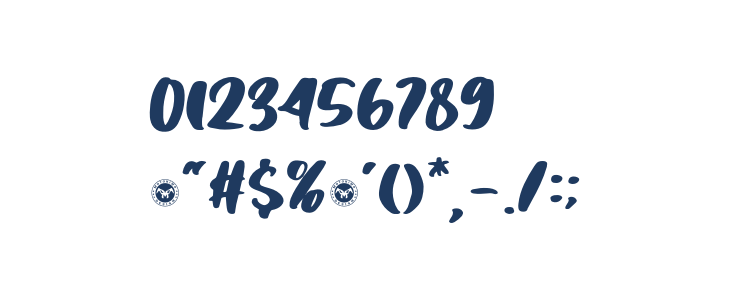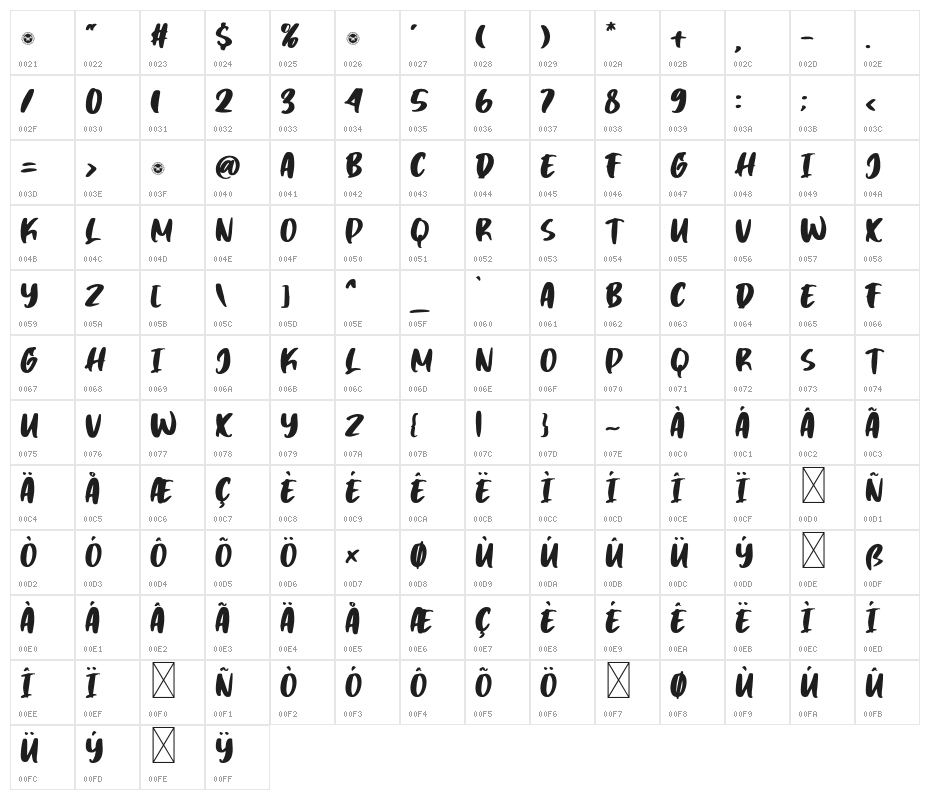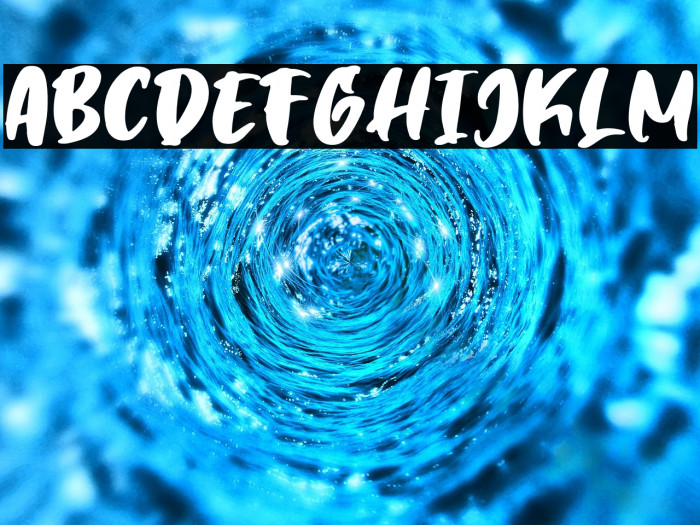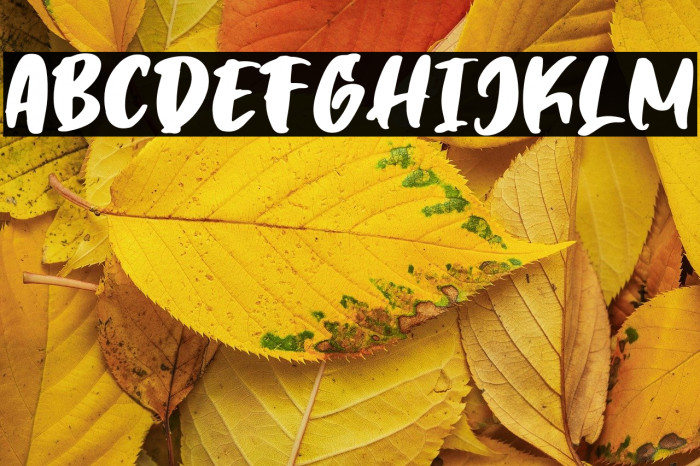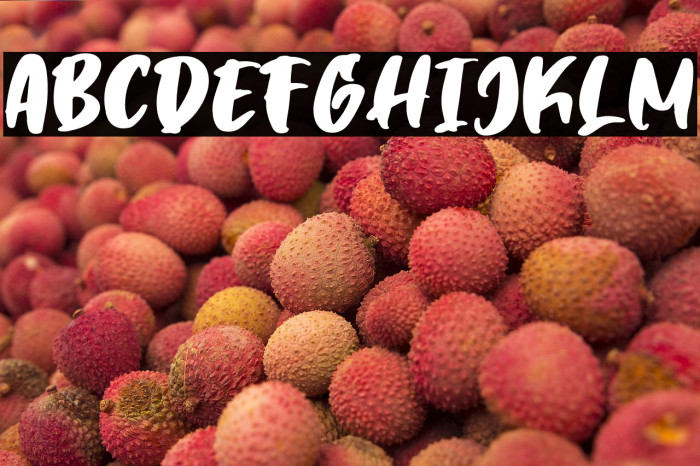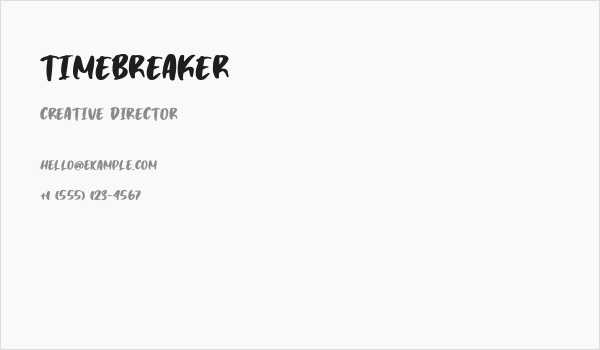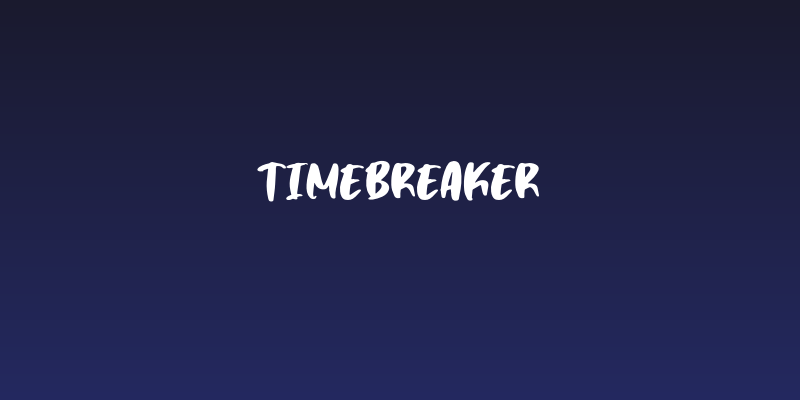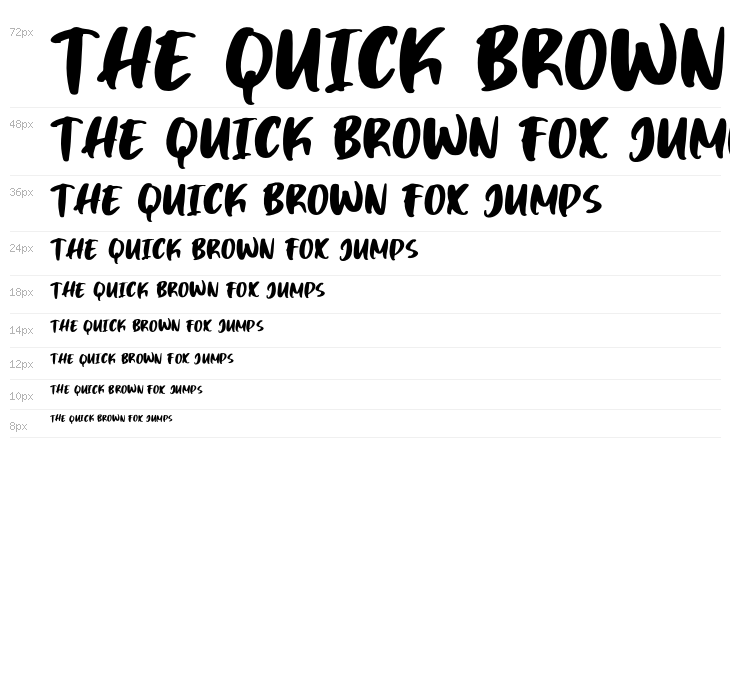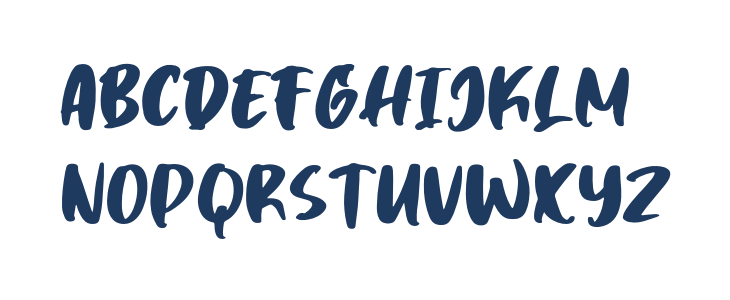
TimeBreaker Font
TimeBreaker Description
This font features a bold and energetic style with a handwritten flair. The characters are thick and rounded, giving a sense of movement and dynamism. The strokes are consistent in their boldness, creating a uniform appearance across all characters. The uppercase and lowercase letters maintain a cohesive look, with a playful yet assertive presence. The numbers and special characters follow the same design principles, ensuring a harmonious overall aesthetic. This font is ideal for projects that require a lively and impactful visual statement.
| Proposed Projects | Perfect for branding, posters, social media graphics, and any project needing a vibrant and bold typeface. |